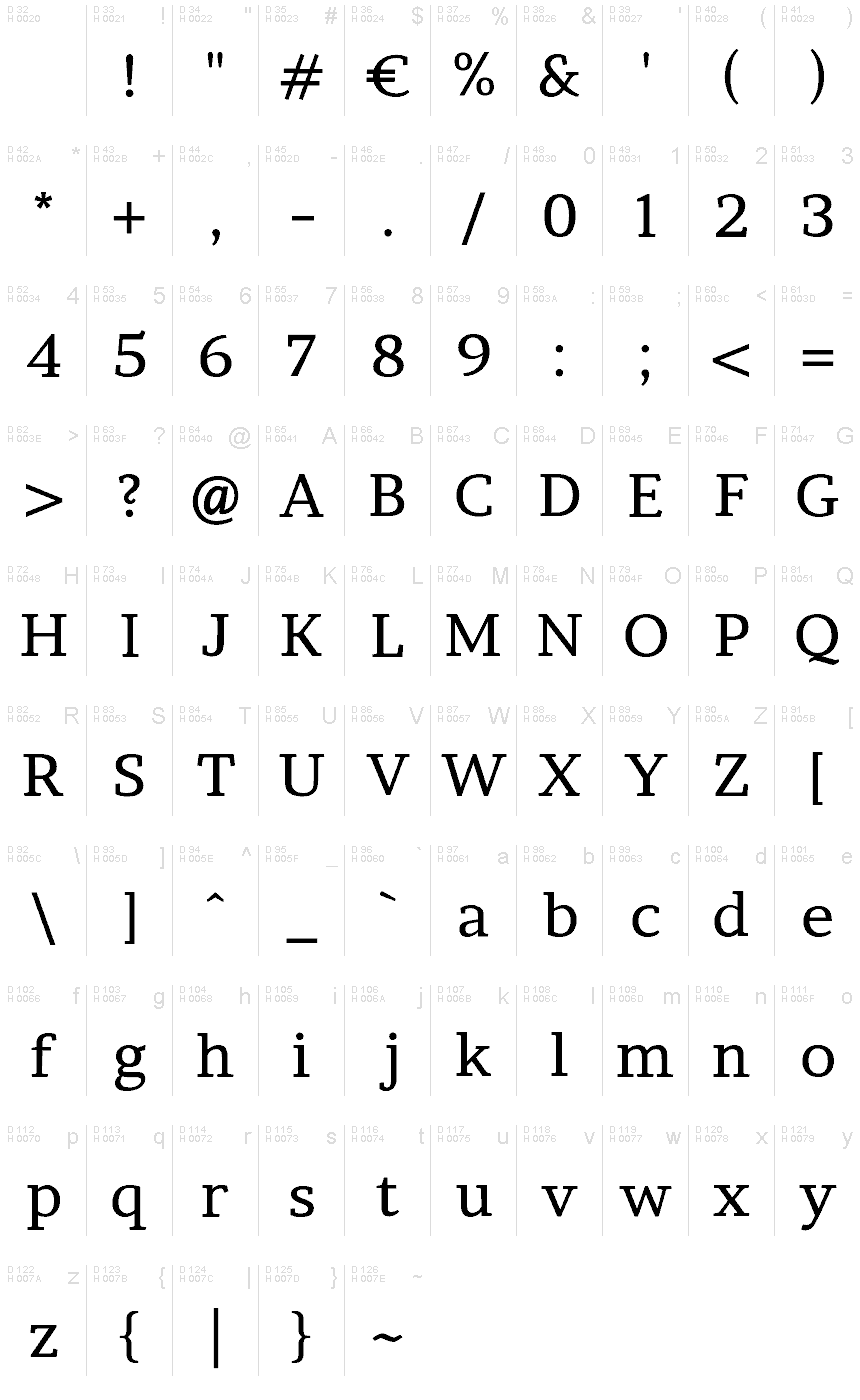
Tess-Demi
Tess Demi is a serif font with a retro classic style, inspired by the American Type Founders (ATF) and International Typefoundry (ITF) from the 40s. This font created by Naan Type Studio features clean yet subtle curves. It also includes stylistic alternates, a variety of ligatures and some alternates and swashes.
Tess is perfect for your logo designs and headlines because of its bold and sharp display. Its retro style is useful for packaging and label designs.